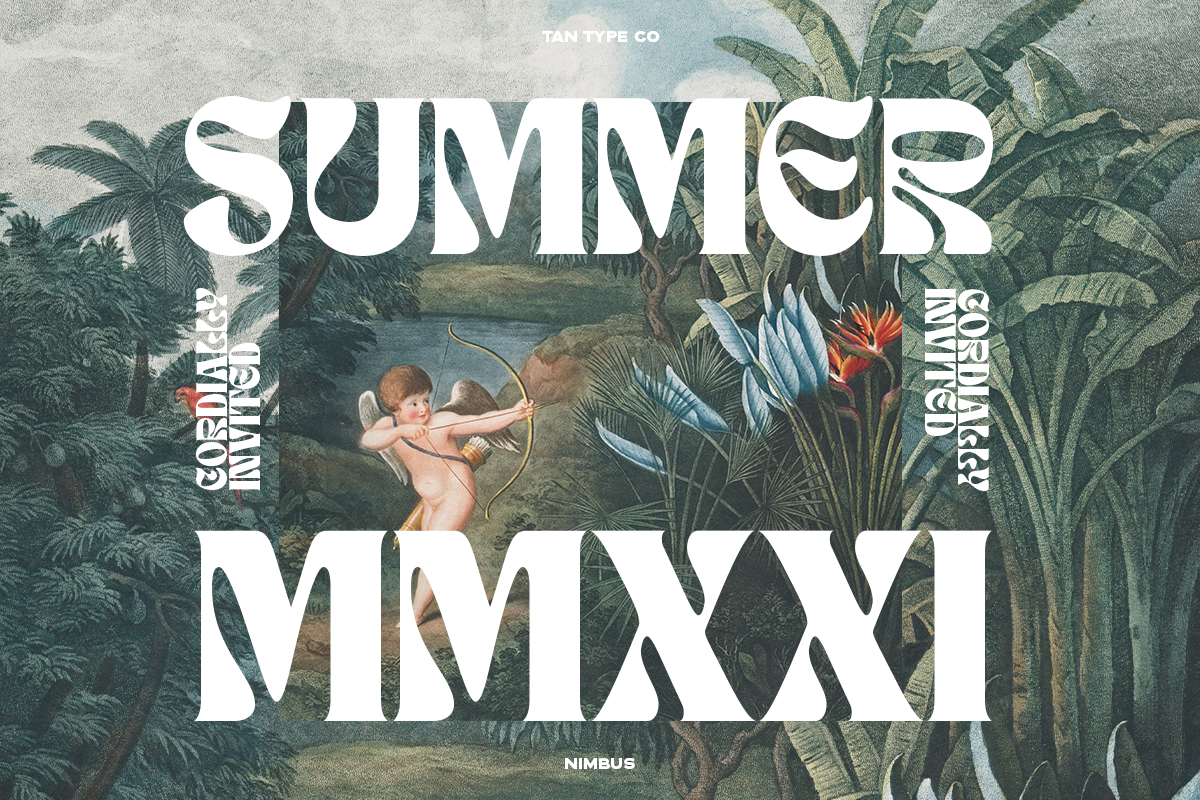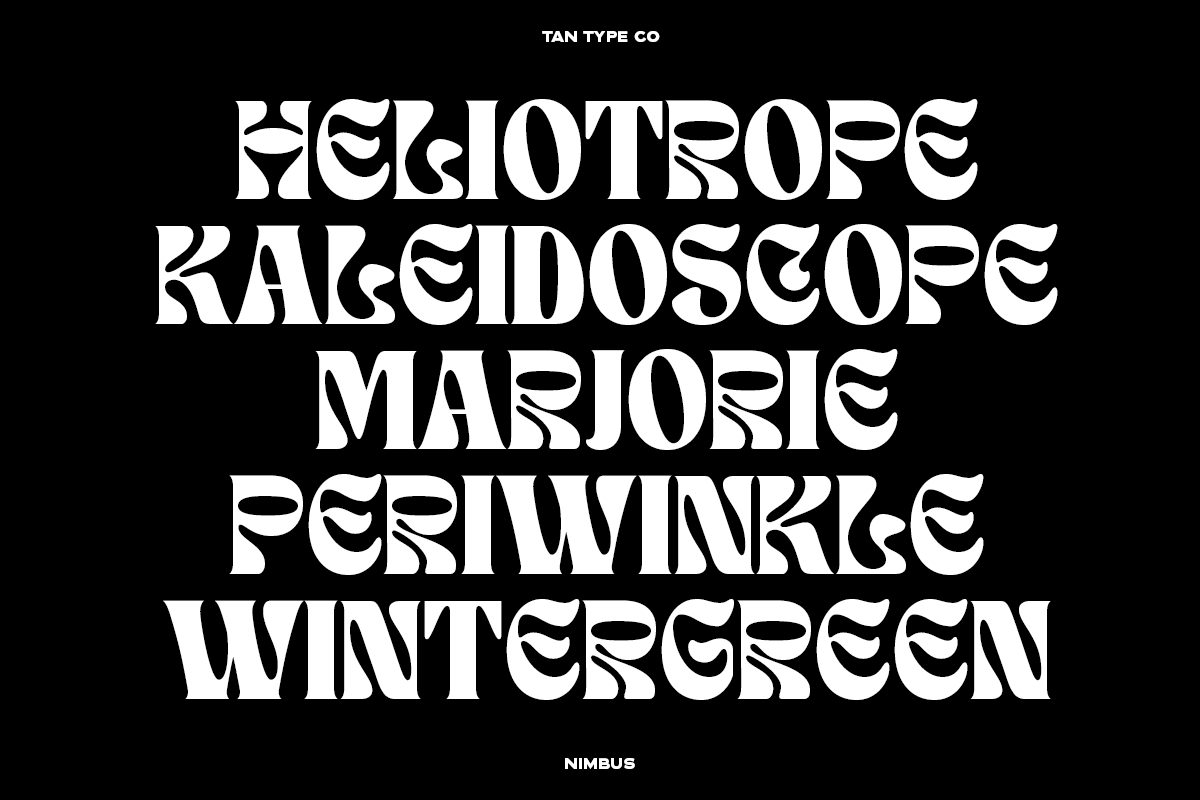
Tan – Nimbus is a psychedelic-inspired typeface. It’s retro, bold, and playful. Perfect if you need a dose of fun in your project. Psychedelic style for your logo, posters, pouch bag design , label, sticker, branding for your brand and many more.